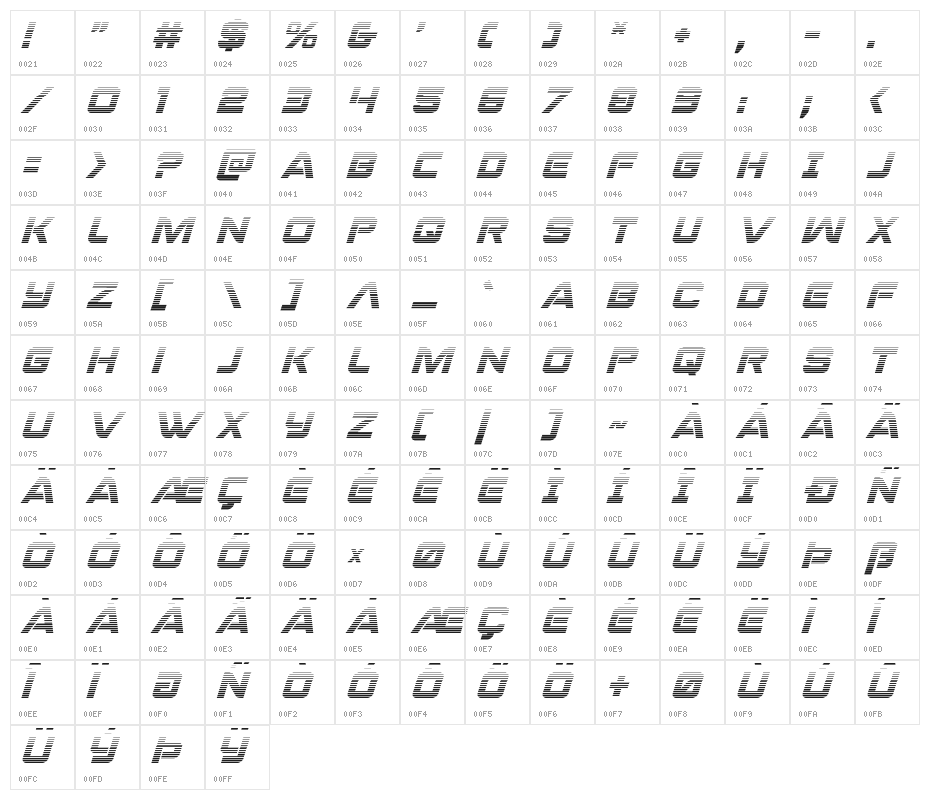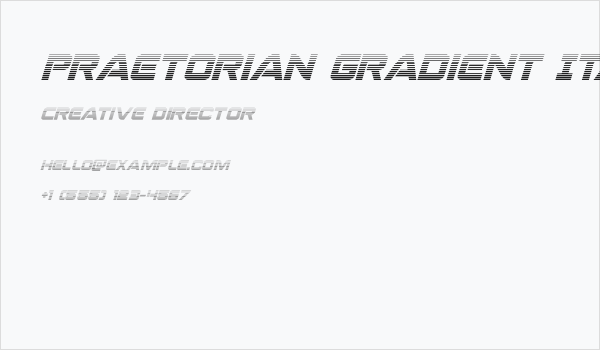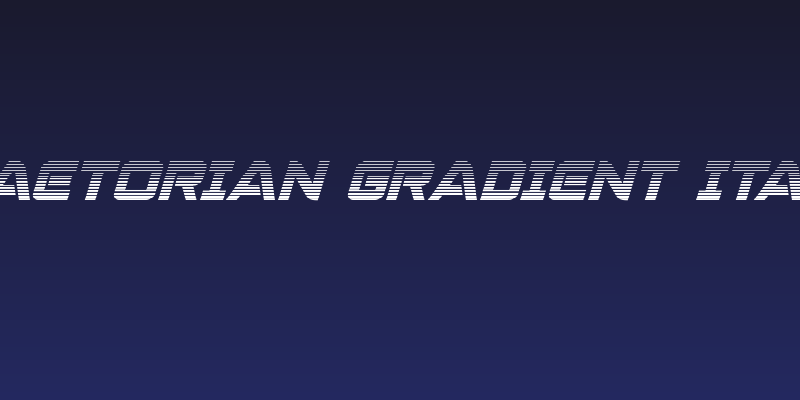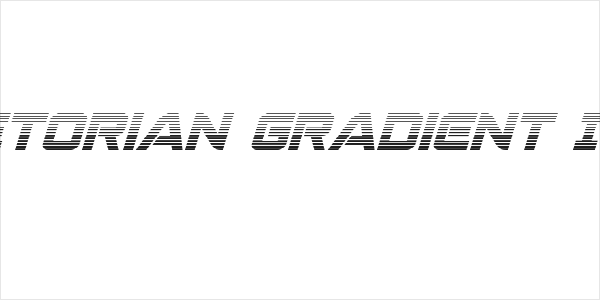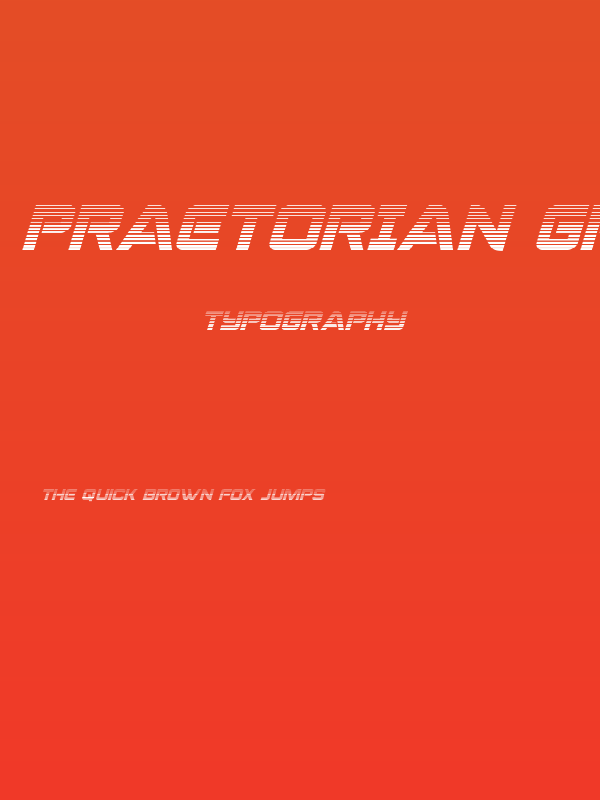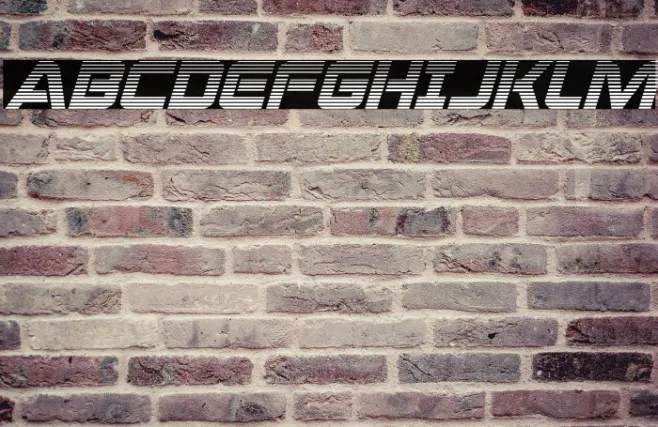
Praetorian Gradient Italic Font
Praetorian Gradient Italic Description
This font features a dynamic and modern design with a gradient effect that gives it a sense of movement and depth. The italicized style adds a sleek and futuristic touch, making it ideal for projects that require a contemporary and edgy look. The characters are composed of horizontal lines that create a striped pattern, enhancing the visual interest and uniqueness of the font. The overall appearance is bold and eye-catching, suitable for making a strong statement in any design.
| Proposed Projects | Ideal for futuristic branding, tech-related designs, sports team logos, and dynamic advertising campaigns. |